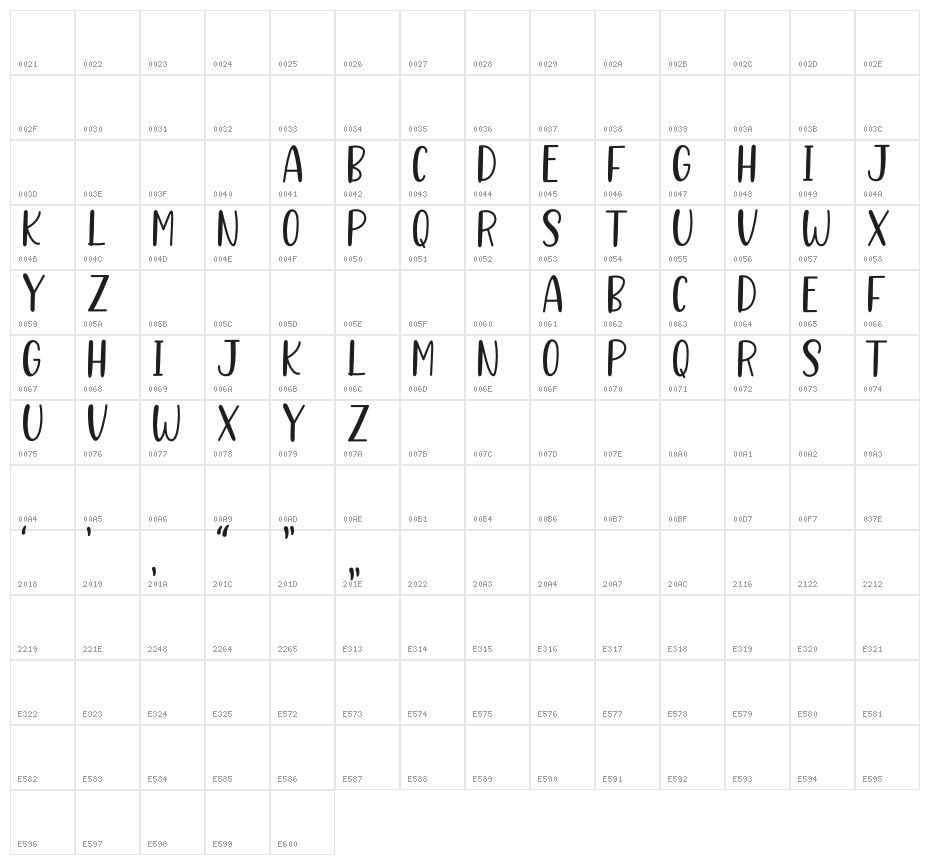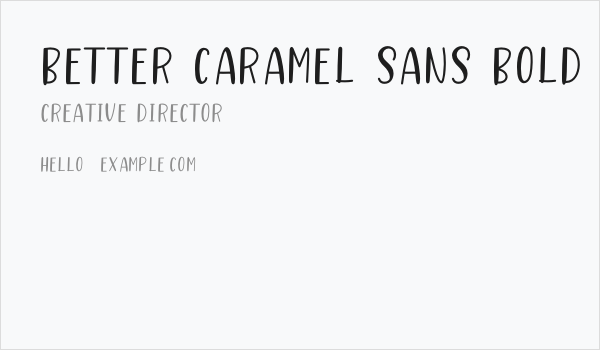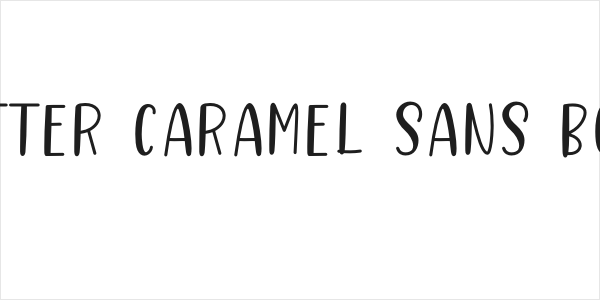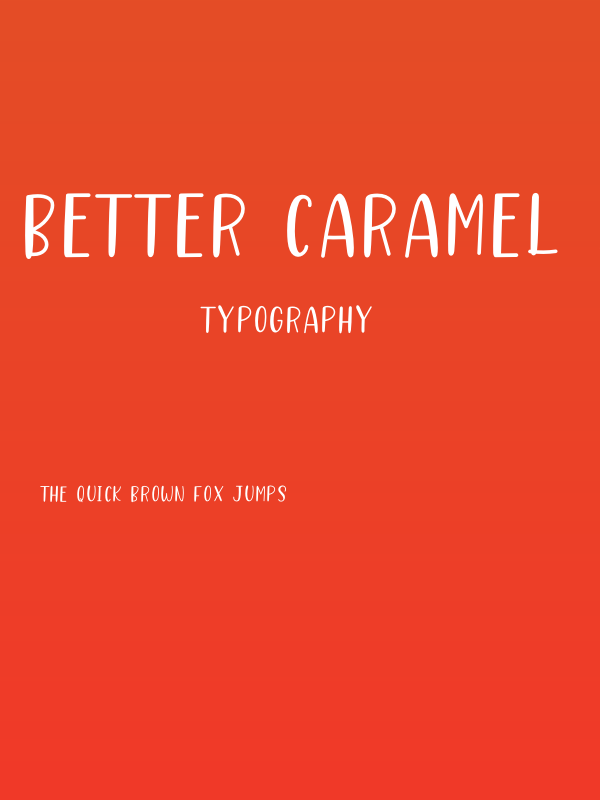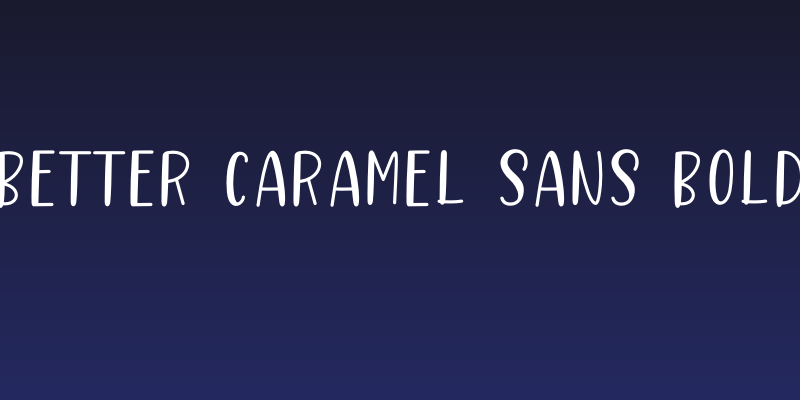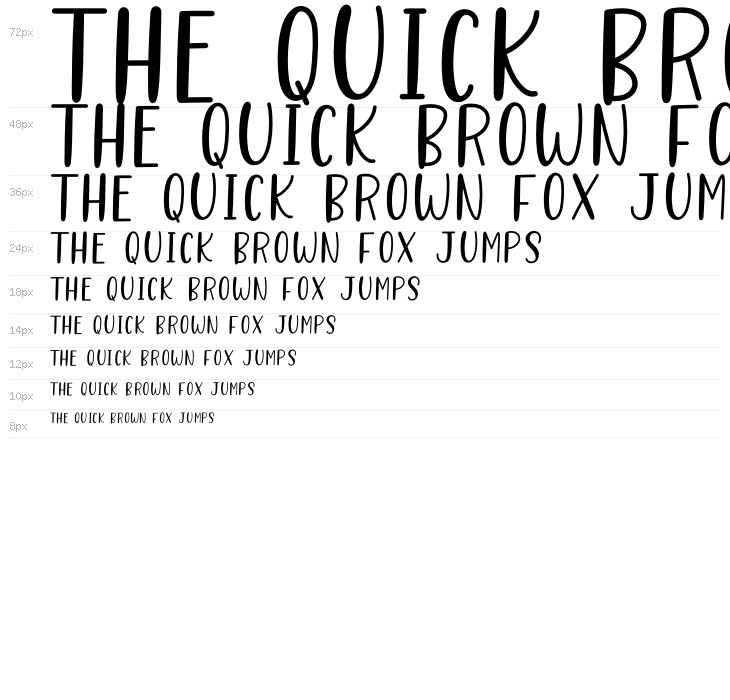
Better Caramel Sans Bold Font
Better Caramel Sans Bold Description
This font features a playful and modern sans-serif style with a handwritten touch. The letters are slightly elongated with smooth curves and a consistent stroke width, giving it a friendly and approachable appearance. The uppercase and lowercase characters maintain a harmonious balance, while the overall design exudes a casual yet refined aesthetic. The font's simplicity and clarity make it versatile for various design applications, from digital to print media. Its unique character shapes add a touch of personality, making it suitable for creative projects that require a distinctive and engaging typeface.